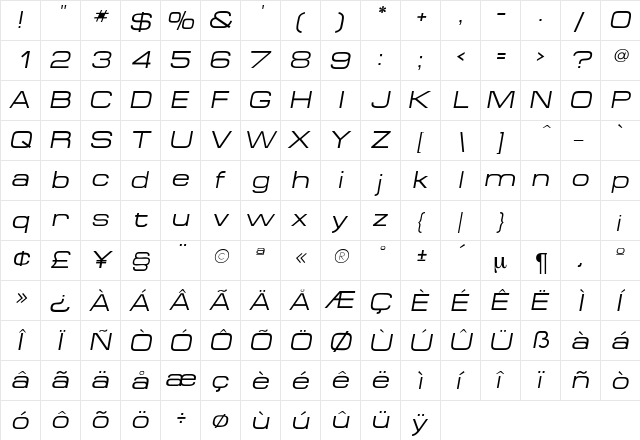
MichaelDB Italic
Design Context for MichaelDB Typeface
MichaelDB takes a measured approach to typography — its balanced proportions and neutral character make it a reliable workhorse for both digital and print work. The slanted form adds forward momentum and visual energy.
Pro Tip: Try MichaelDB for annotation and caption copy alongside an upright companion — the contrast in angle creates a dynamic but ordered typographic system.